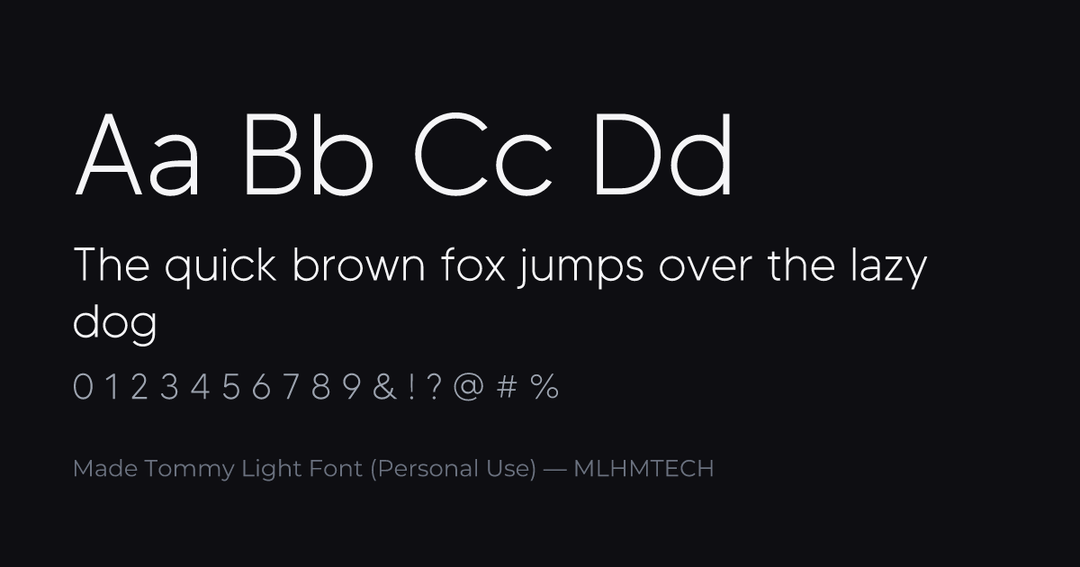
Made Tommy Light Font (Personal Use)
Made Tommy Light is an elegant and modern font in OTF format, ideal for branding, logos, and creative designs. This personal-use version is free for your personal projects.
Made Tommy Light is a refined sans-serif font with a clean and contemporary look. Its light weight and balanced proportions make it perfect for headlines, logos, and branding materials that require a touch of sophistication.